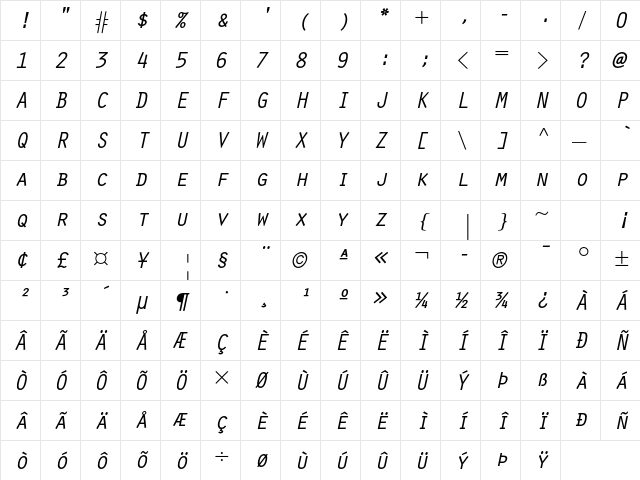
Orator Std Slanted
| Style | Slanted |
| Designer | John Scheppler |
Design Context for Orator Std Typeface
Orator Std offers clean, dependable letterforms without strong stylistic allegiance, making it a practical choice for designers who need flexibility. The slanted form adds forward momentum and visual energy.
Pro Tip: Try Orator Std for annotation and caption copy alongside an upright companion — the contrast in angle creates a dynamic but ordered typographic system.